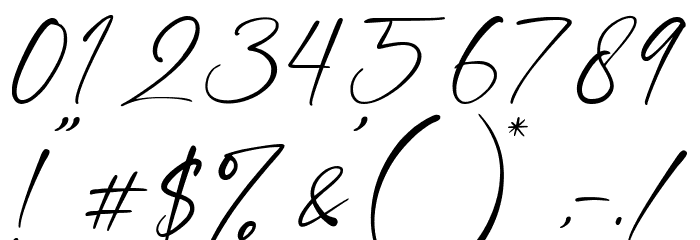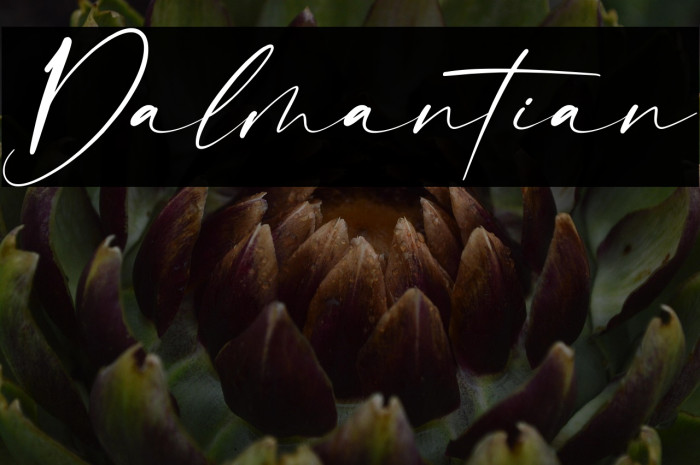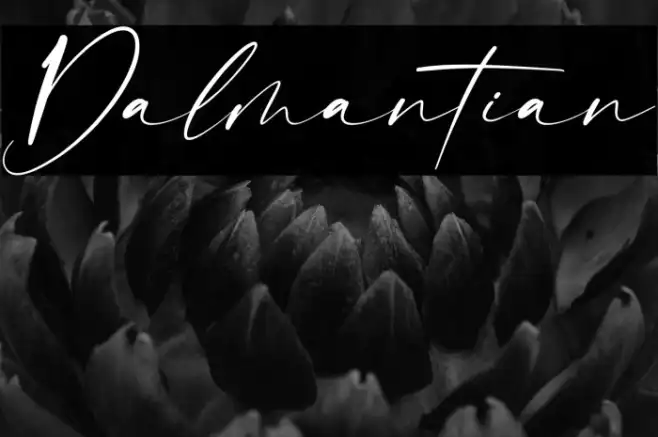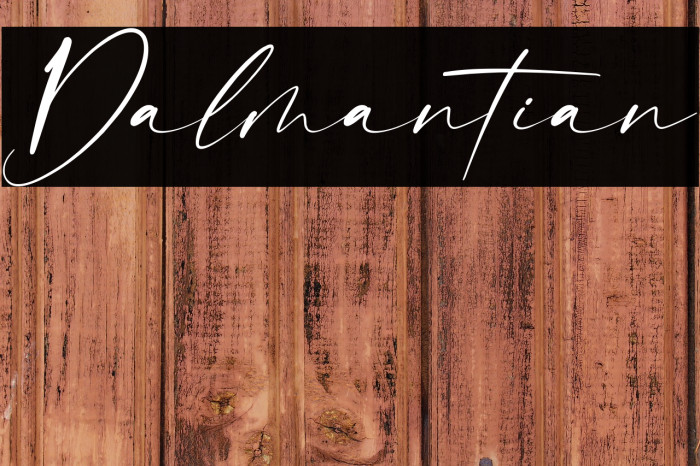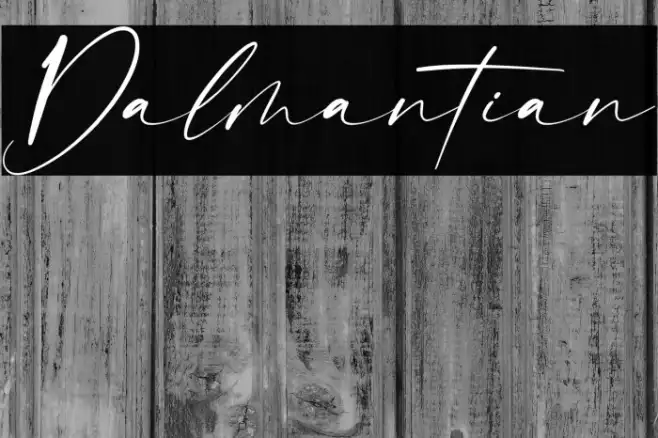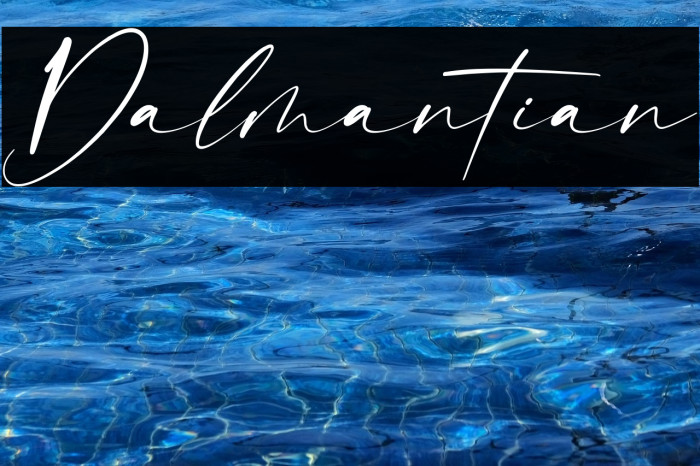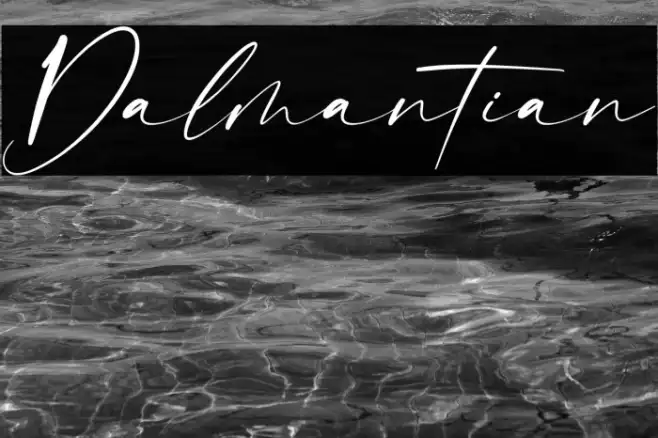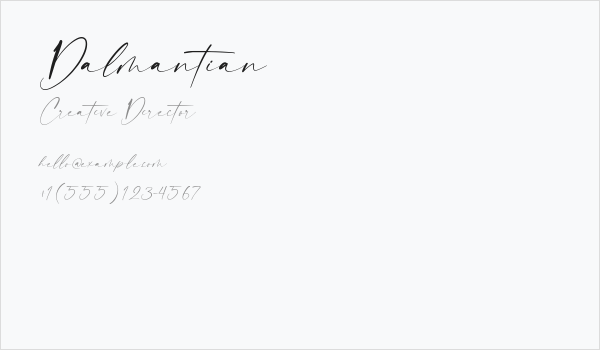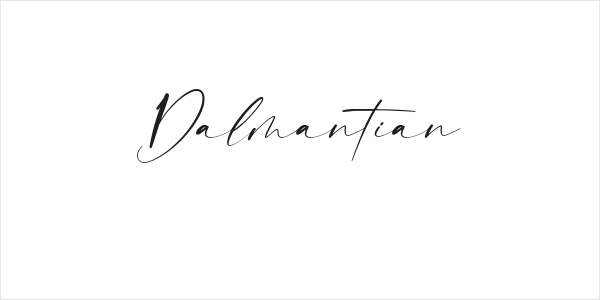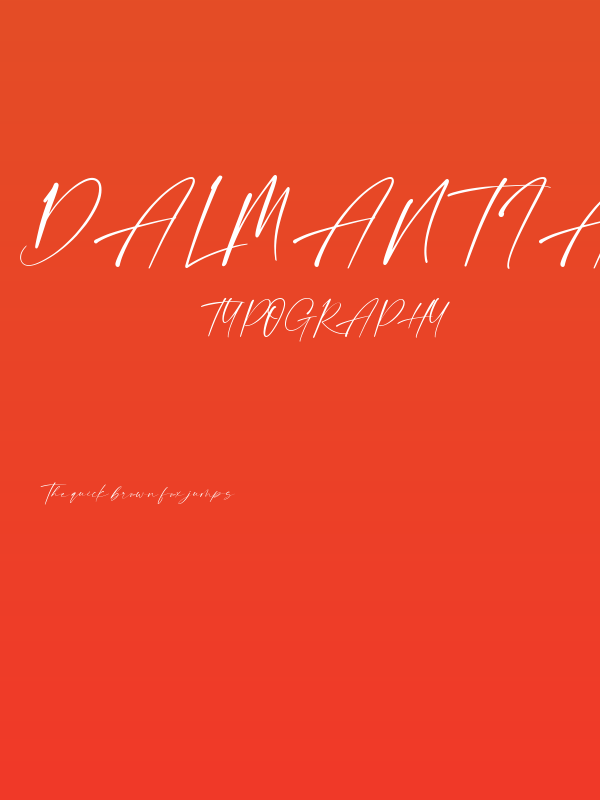
Dalmantian Font
Dalmantian Description
This elegant script font features a fluid and graceful style, characterized by its smooth, flowing lines and delicate curves. The uppercase letters are bold and sweeping, while the lowercase letters maintain a consistent, flowing rhythm. The numerals and special characters are designed with the same attention to detail, ensuring a cohesive look across all characters. This font exudes a sense of sophistication and charm, making it ideal for projects that require a touch of elegance and personal flair.
| Overall Style | Elegant, Sophisticated |
| Use Case | Logos, Invitations, Personal Stationery |
| Proposed Projects | Ideal for wedding invitations, elegant branding, personal stationery, and artistic projects that require a sophisticated touch. |